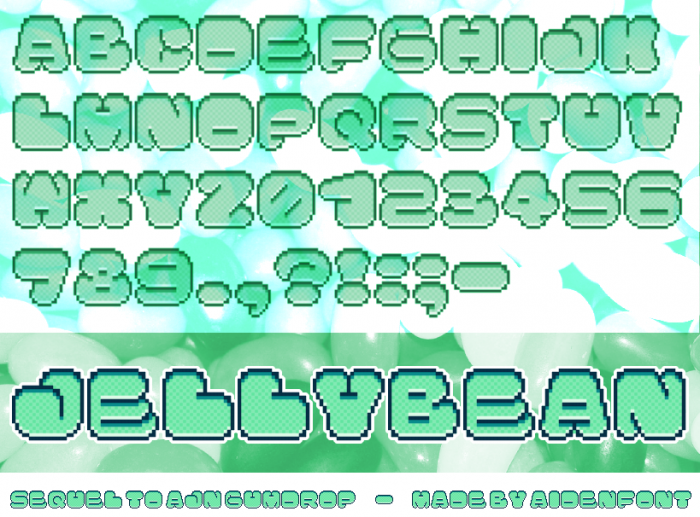
really like it, half-tone, 3d-effect, great!
In pixel size it works really good 10/10
Love the glyphs.
Lovely original pixel work including unusual shadows and highlights.
Very pretty pixel work. 10/10
Congratulations! FontStruct Staff have deemed your FontStruction worthy of special mention. “AJN Jellybean” is now a Top Pick.